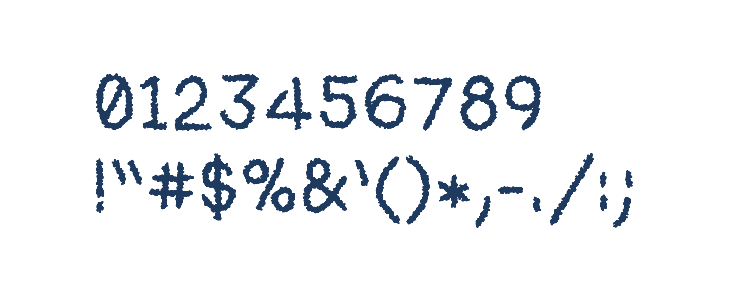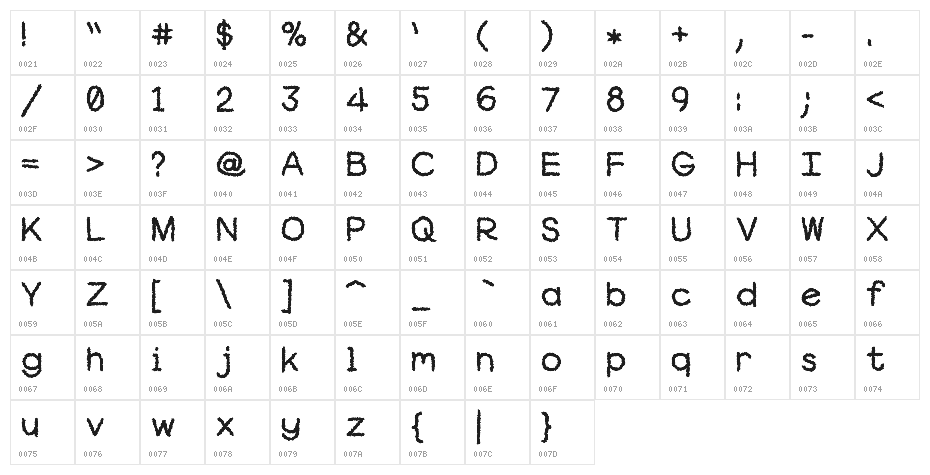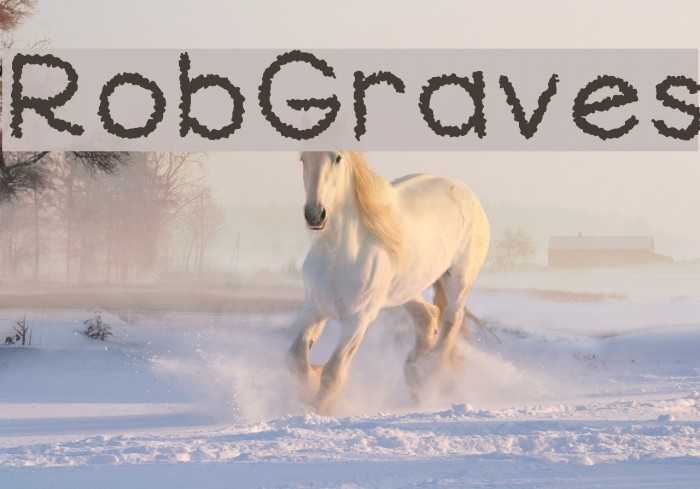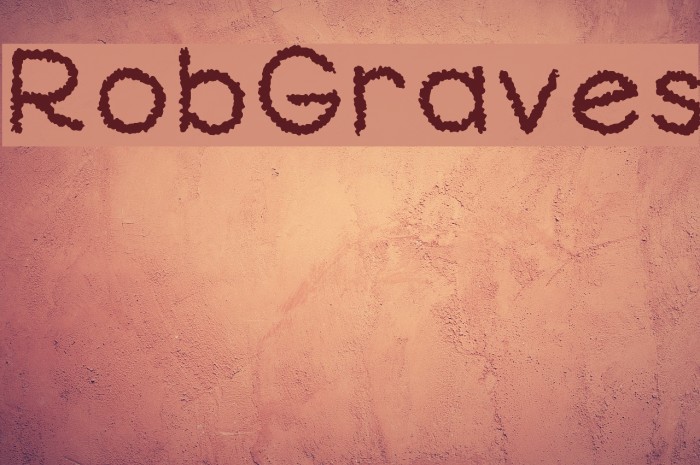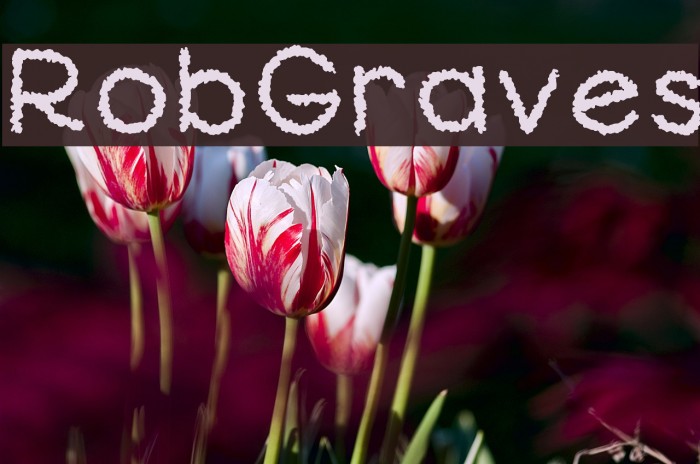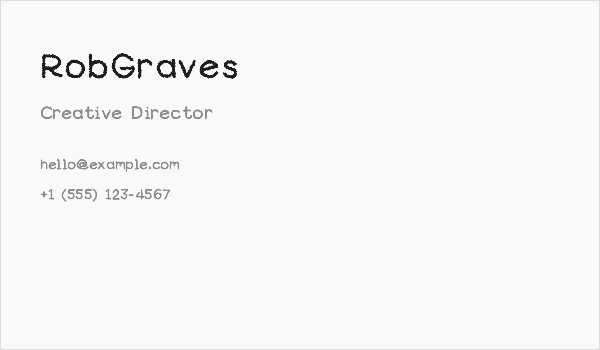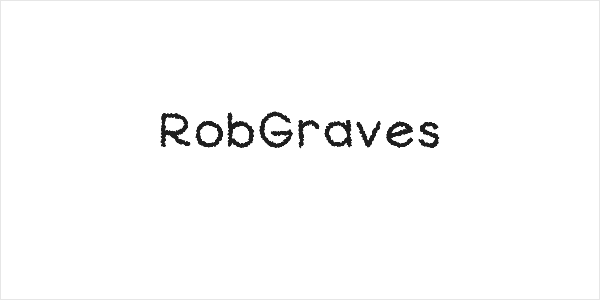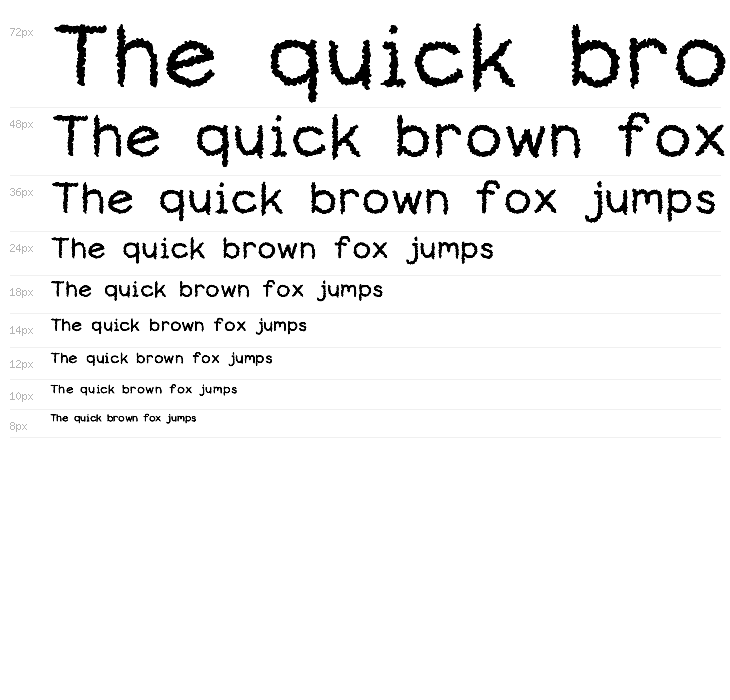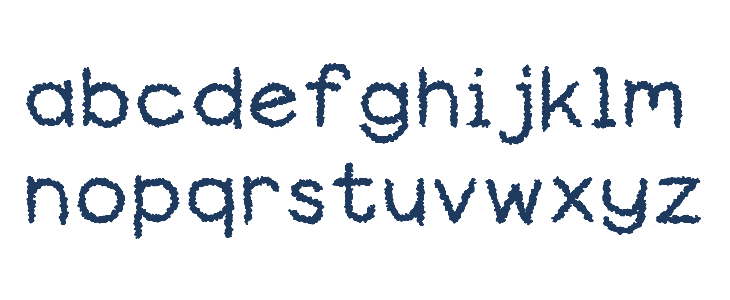
RobGraves Font
RobGraves Description
This font features a playful, hand-drawn style with a textured, chalk-like appearance. The characters are rounded and slightly irregular, giving them a casual and approachable feel. The uppercase and lowercase letters maintain a consistent style, with the lowercase letters being slightly smaller and more compact. Numbers and special characters follow the same design, ensuring uniformity across all glyphs. The font's unique texture adds a tactile quality, making it ideal for projects that require a personal touch.
| Proposed Projects | Ideal for children's books, educational materials, playful branding, and creative posters. |